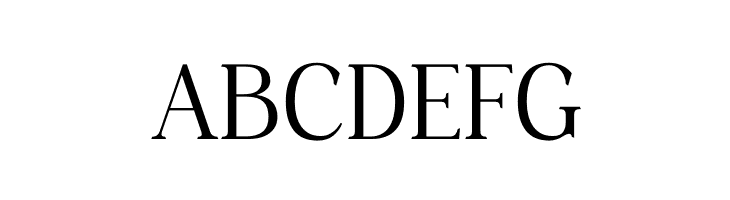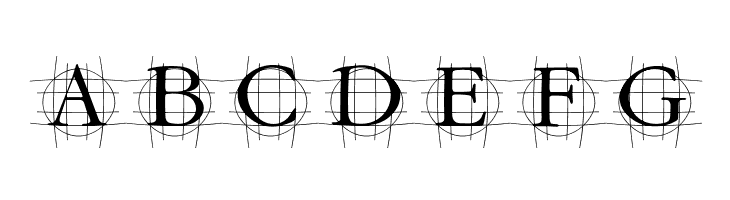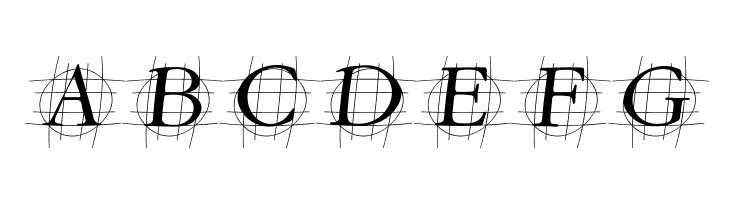
G Fonts
Granaina-limpia Font
Granaina Font is a double typeface inspired by the Granada (Andalucía-Spain) street signals which are made of pottery. - Personal-use only. For commercial use please contact owner.
A classic serif font with high contrast and elegant curves.
Granary Capitals Regular Font
Font by Vladimir Nikolic - www.creativefabrica.com/designer/vladimirnikolic/ - Personal-use only. For commercial use please contact owner.
A bold, decorative font with uppercase letters in circular borders, offering a vintage, industrial feel.
Granary Filled Regular Font
Font by Vladimir Nikolic
A bold, geometric font with filled patterns and a modern, decorative style.
Granary Regular Font
Font by Vladimir Nikolic
A bold, decorative font with circuit-like patterns and a modern, technological feel.
Grand Alphabet [Arial] Font
Font by www.omniglot.com
Grand Alphabet [Times New Roman] Font
Font by www.omniglot.com
A classic serif font with a formal and elegant style.
Grand Amoura Font
Font by ReyreyBlue - Reyrey Blue - Personal-use only. For commercial use please contact owner.
An elegant script font with fluid, cursive strokes and sophisticated design.
Grand Aprilliant Sans Font
Font by Fajar Abdul Fattah - https://fontbundles.net/sibelumpagi-studio - Personal-use only. For commercial use please contact owner.
A modern, geometric sans-serif font with consistent stroke widths and clean lines.
Grand Astoria Font
Font by Pen Culture
A delicate, flowing script font with a handwritten, elegant style.
Grand Bakaw Font
Font by Balpirick Studio - Personal-use only. For commercial use please contact owner.
A playful handwritten font with fluid, organic strokes and a casual vibe.
Grand Cru Light S Font
Font by Fenotype - Emil Bertell - Personal-use only. For commercial use please contact owner.
A classic serif font with elegant strokes and refined proportions.
Grand Dae Demo Regular Font
Font by
Sayfont
A bold, decorative serif font with high contrast and stylized letterforms.
Grand Duchess Font
A graceful, handwritten font with elegant, fluid strokes.
GRAND DUKE Font
Font by Ahmad Syarif Afandi - https://delapan.studio - Personal-use only. For commercial use please contact owner.
A bold, high-contrast serif font with dramatic strokes and elegant serifs.
Grand Estonia Demo Font
Font by Edric Studio - Personal-use only. For commercial use please contact owner.
An elegant, cursive font with intricate, flowing strokes and ornate flourishes.
GRAND FINALE Bold Font
Font by Tino Mendes - www.behance.net/tinomendes - Personal-use only. For commercial use please contact owner.
A bold, modern, and condensed font with clean lines and geometric structure.
GRAND GALAXY Font
Font by MaknaStudio - Yudis Tira - Personal-use only. For commercial use please contact owner.
A futuristic, geometric font with bold, angular letterforms.
Grand Guignol Regular Font
Font by Vladimir Nikolic - www.creativefabrica.com/designer/vladimirnikolic/ - Personal-use only. For commercial use please contact owner.
A bold, dramatic font with a three-dimensional effect and strong geometric shapes.
Grand Historia Font